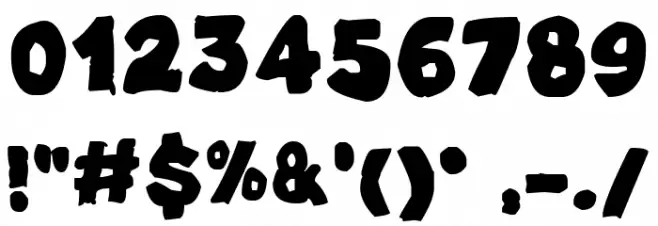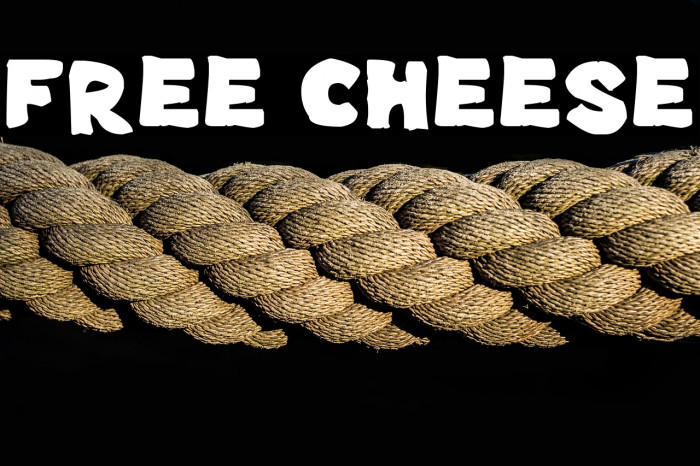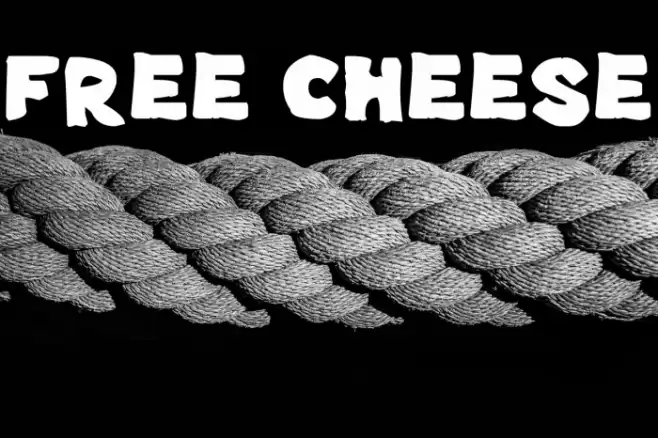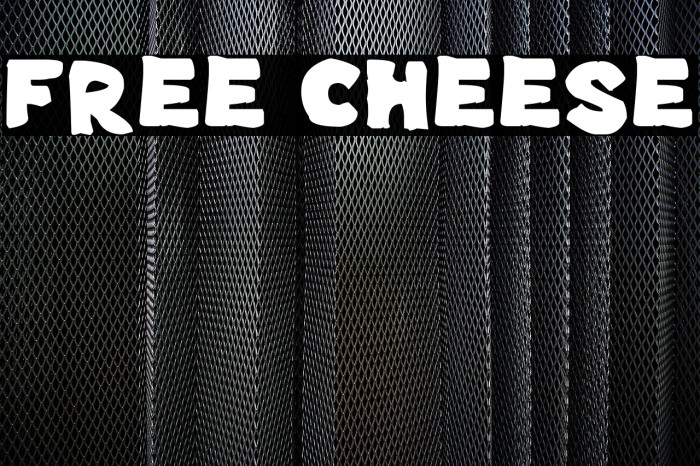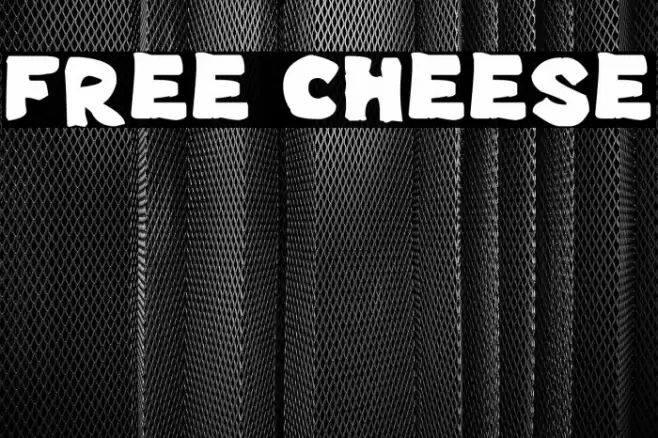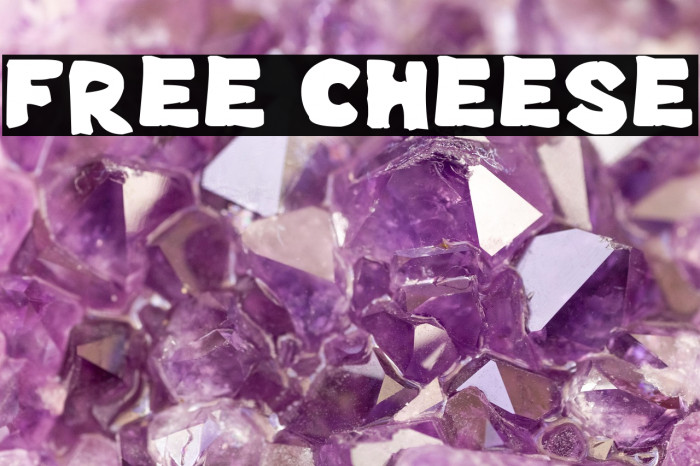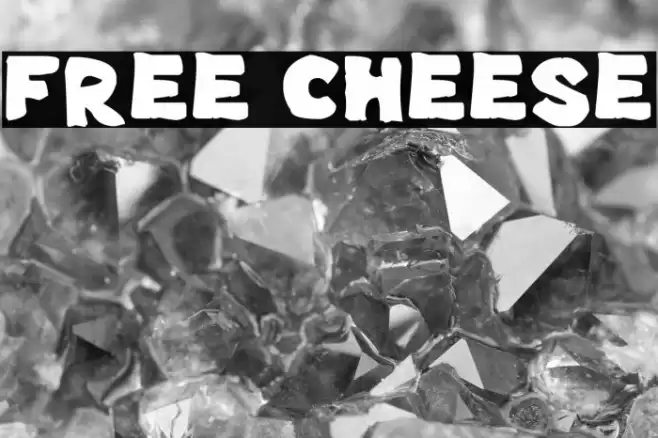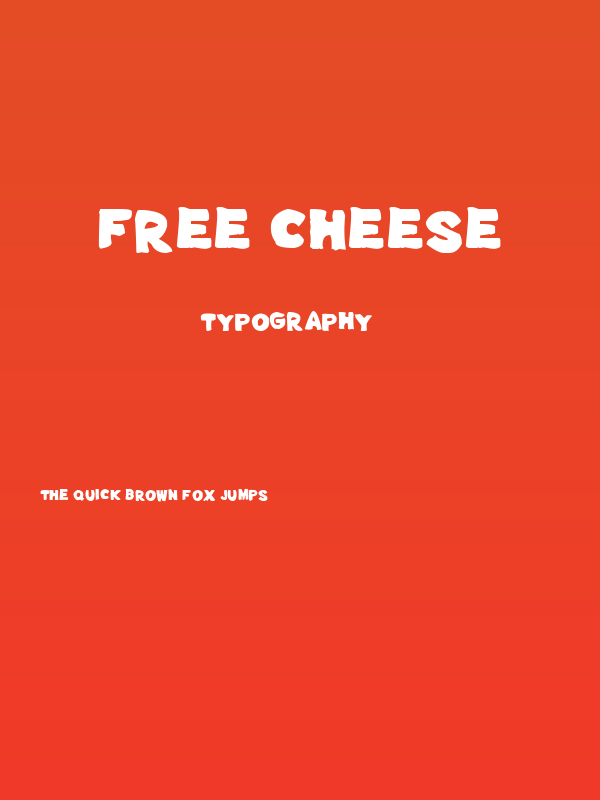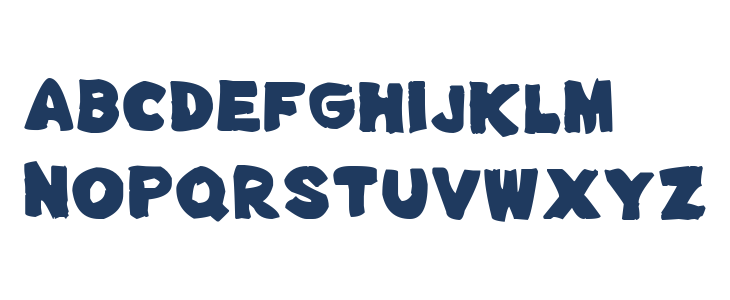
Free Cheese Font
Free Cheese Description
This font features a bold and playful design with a hand-drawn aesthetic. The characters are thick and rounded, giving them a friendly and approachable appearance. The irregular edges and varying stroke widths add a whimsical touch, making it ideal for creative and informal projects. The uppercase and lowercase letters maintain a consistent style, while the numerals and special characters complement the overall look. This font's unique style is perfect for capturing attention and conveying a sense of fun and creativity.
| Overall Style | Playful, Creative |
| Proposed Projects | Ideal for children's books, playful branding, posters, and creative invitations. |